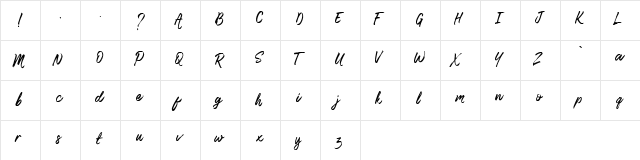
Lismonia Brush Font Demo Regular
| Foundry | Tastype Foundry |
| Designer | Adhitya Wahyu Nugroho |
Design Context for Lismonia Brush Font Demo Typeface
Lismonia Brush Font Demo flows with the natural rhythm of handwritten lettering, making it ideal for designs that call for warmth and personal expression.
Font Pairing: Combine Lismonia Brush Font Demo with a simple geometric sans for maximum contrast — the tension between flowing curves and clean structure is a classic typographic pairing.
Pro Tip: Use Lismonia Brush Font Demo for short runs of text — names, titles, or taglines. Extended body copy in script faces tires the eye quickly.